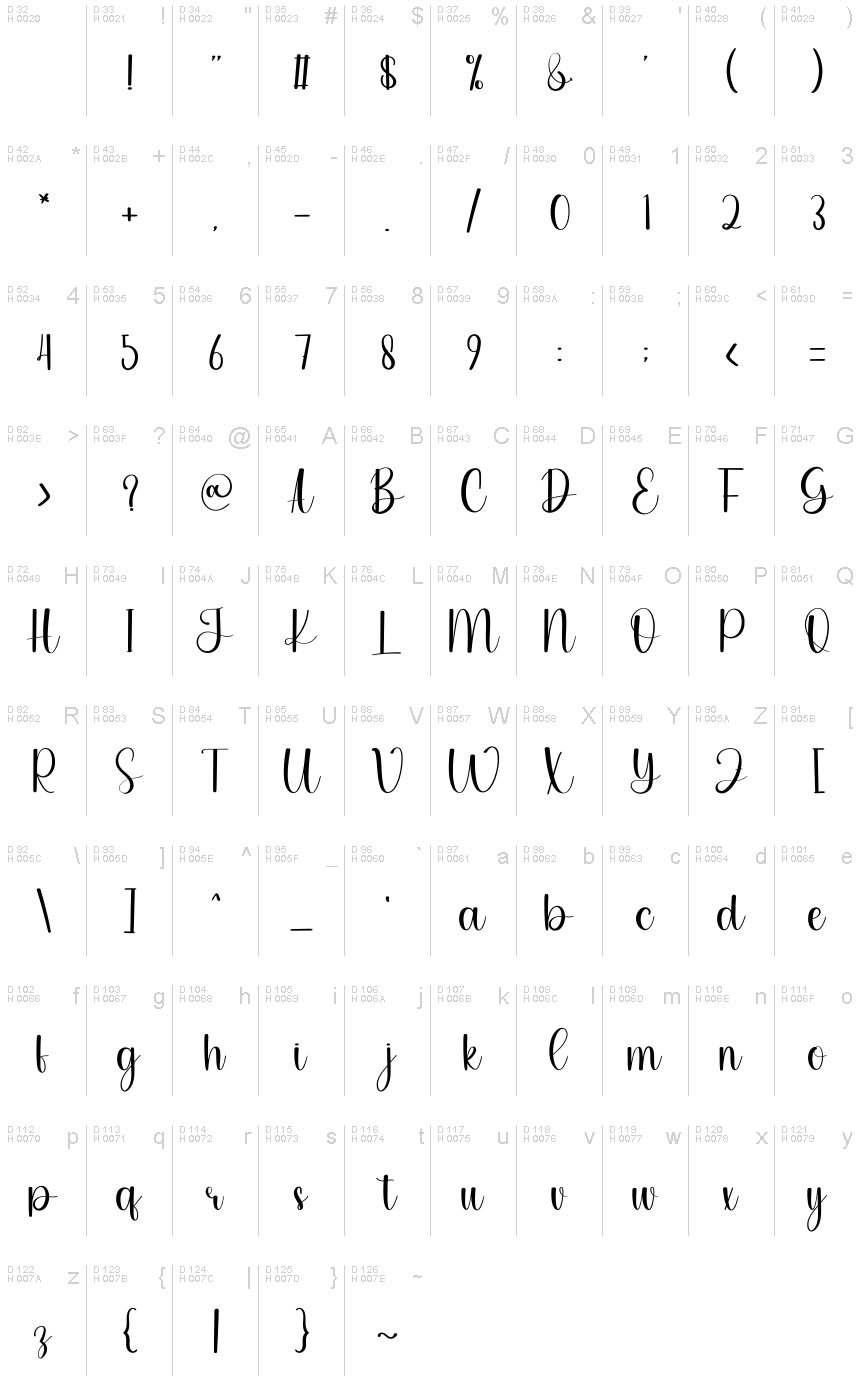
Smile
Smile, crafted by PiPi Creative, is a calligraphic font that radiates warmth and personality. Its semi-light weight and semi-condensed width create a harmonious balance, making it both inviting and efficient in its use of space. The elegant curves and playful movement inherent in Smile's design mimic the fluidity of handwriting, bringing an authentic touch to any project.
This font's aesthetic appeal lies in its ability to convey casual elegance while maintaining legibility. Its unique character makes it an excellent choice for branding, wedding invitations, personalized stationery, or any creative endeavor that calls for a touch of individuality. With Smile, designers can effortlessly infuse their work with a sense of joy and sophistication.